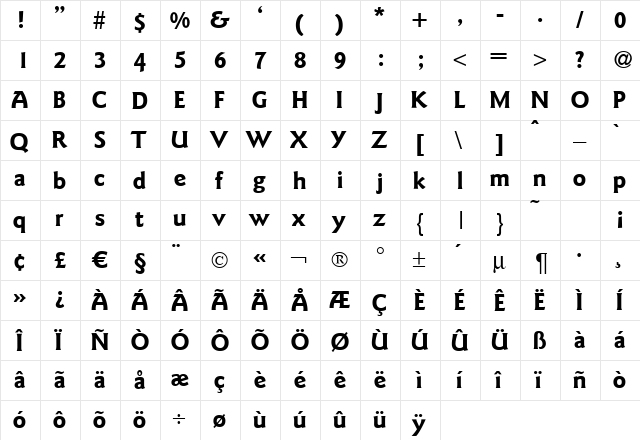
GoudyElegantTwo Bold
Design Context for GoudyElegantTwo Typeface
GoudyElegantTwo takes a measured approach to typography — its balanced proportions and neutral character make it a reliable workhorse for both digital and print work. The heavy weight commands attention and anchors typographic hierarchies.